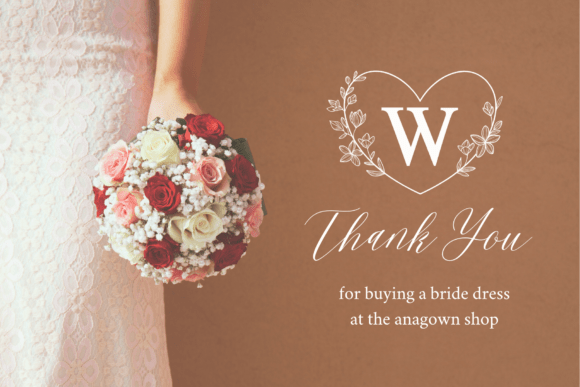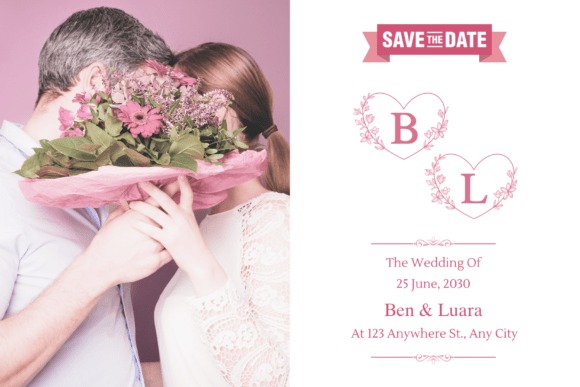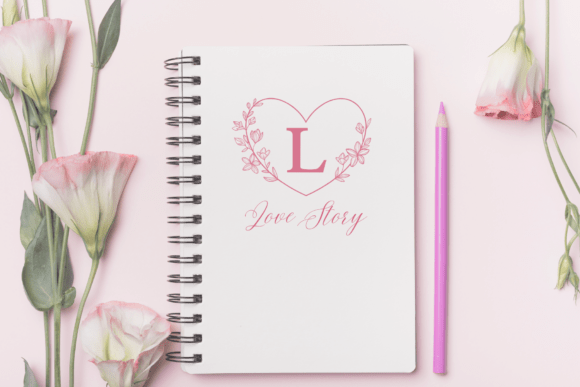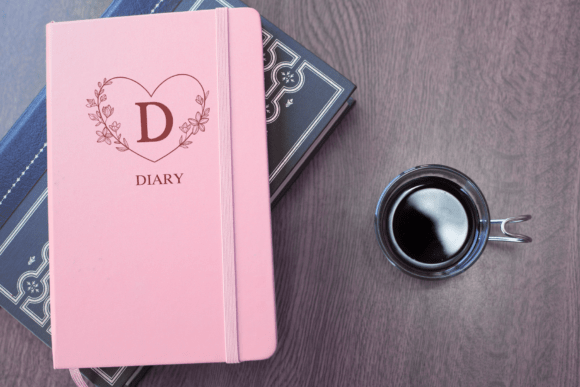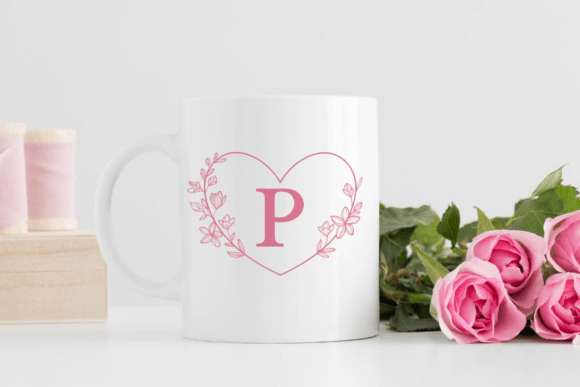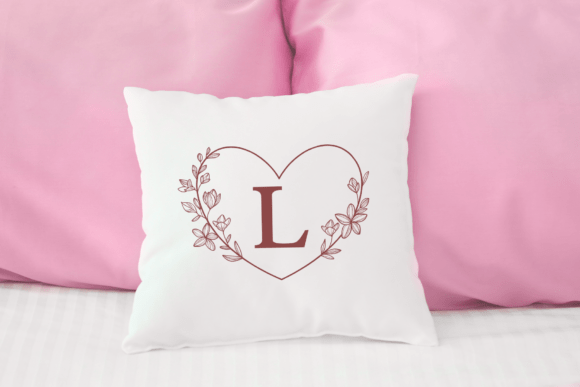
The Magic of Floral Heart Monogram Font
I’ll never forget the time I was working on a wedding invitation project for a dear friend. I had the design all planned out, but something was missing – the perfect font. I scoured the internet, tried out countless options, but nothing seemed quite right. That was until I stumbled upon the Floral Heart Monogram Font. It was love at first sight! 💕
This elegant font is designed for special occasions, featuring decorative letters inside a beautiful flower heart frame. It’s perfect for invitations, wedding cards, diaries, mugs, and more. In this article, I’ll share my experience with Floral Heart Monogram Font, its features, and how to make the most of it in your designs.
- ✨ Elegant and sophisticated design, perfect for special occasions
- ✅ Beautiful flower heart frame that adds a touch of charm to any design
- 🎉 Versatile and can be used for various projects, from invitations to mugs
While Floral Heart Monogram Font is a stunning addition to any design, there are a few things to keep in mind:
- ⚠️ Limited character set, which may require some creative workarounds
- 🤔 May not be suitable for body text or large blocks of text due to its decorative nature
A Practical Guide to Using Floral Heart Monogram Font
Floral Heart Monogram Font was inspired by the beauty of nature and the romance of special occasions. The designer wanted to create a font that would add a touch of elegance and sophistication to any design. With its beautiful flower heart frame and decorative letters, Floral Heart Monogram Font is sure to delight.
| Font Name | Floral Heart Monogram Font |
| Author | Pui Art |
Q: Can I use Floral Heart Monogram Font for my wedding invitations?
A: Absolutely! Floral Heart Monogram Font is perfect for wedding invitations, save-the-dates, and other wedding-related designs.
Q: Is Floral Heart Monogram Font easy to read?
A: While Floral Heart Monogram Font is a decorative font, it can be a bit challenging to read in large blocks of text. However, it’s perfect for short texts, such as headings, titles, and captions.